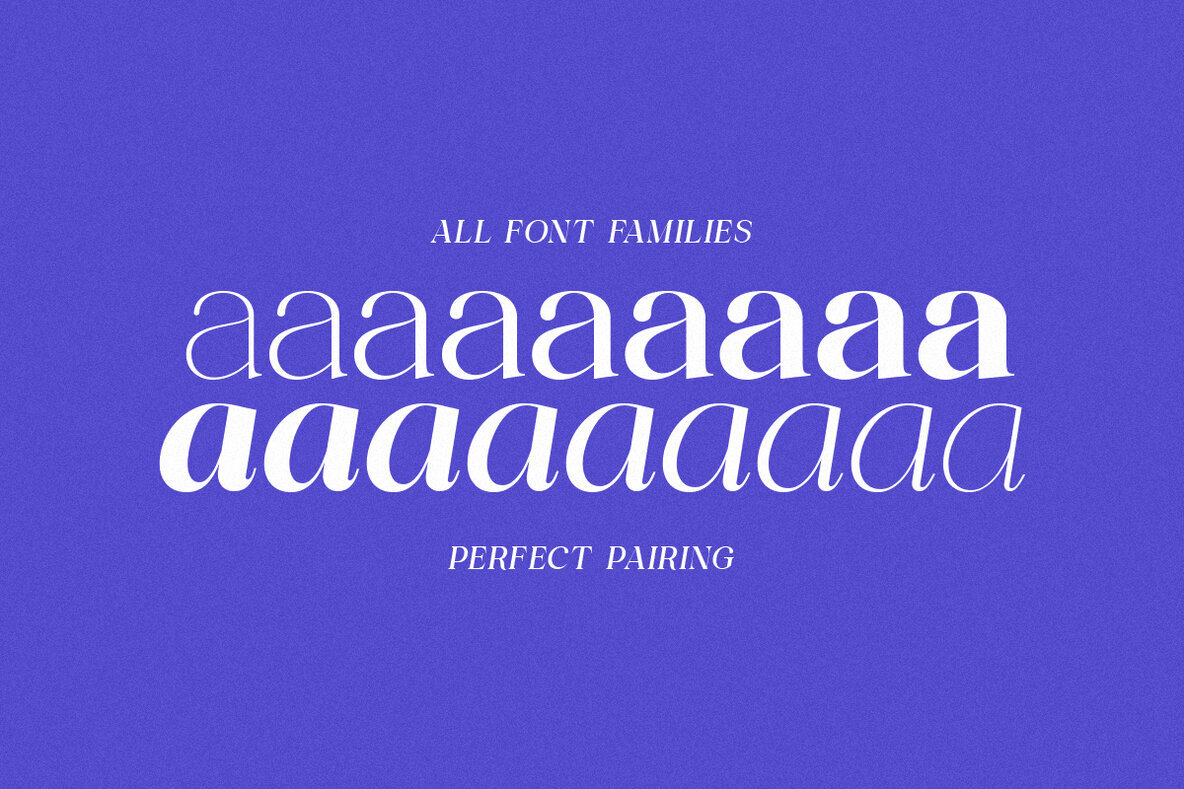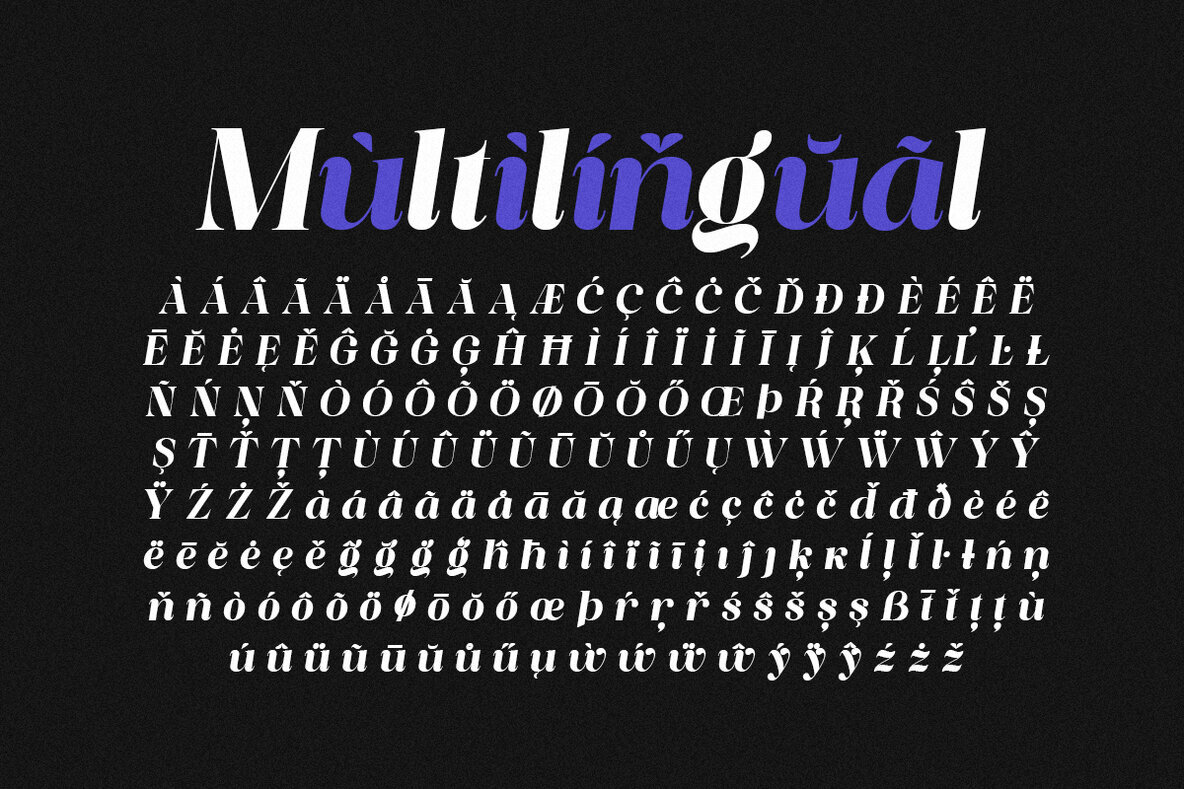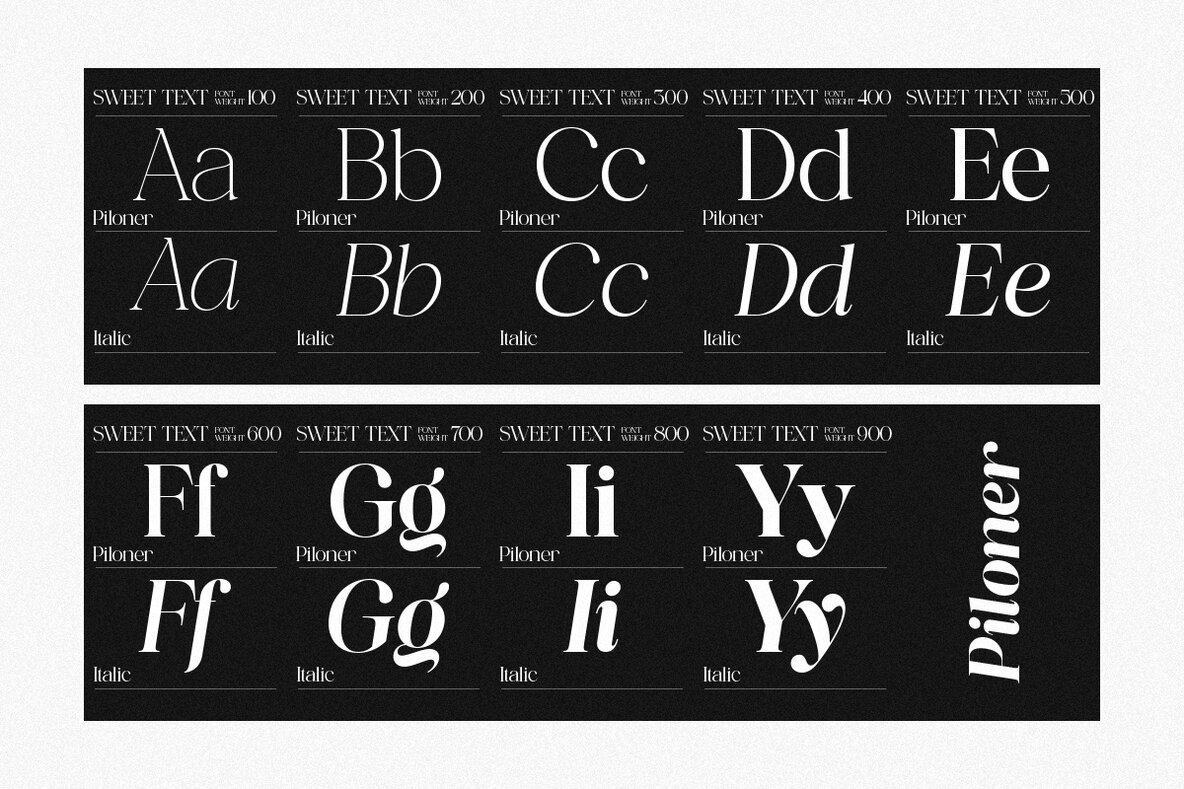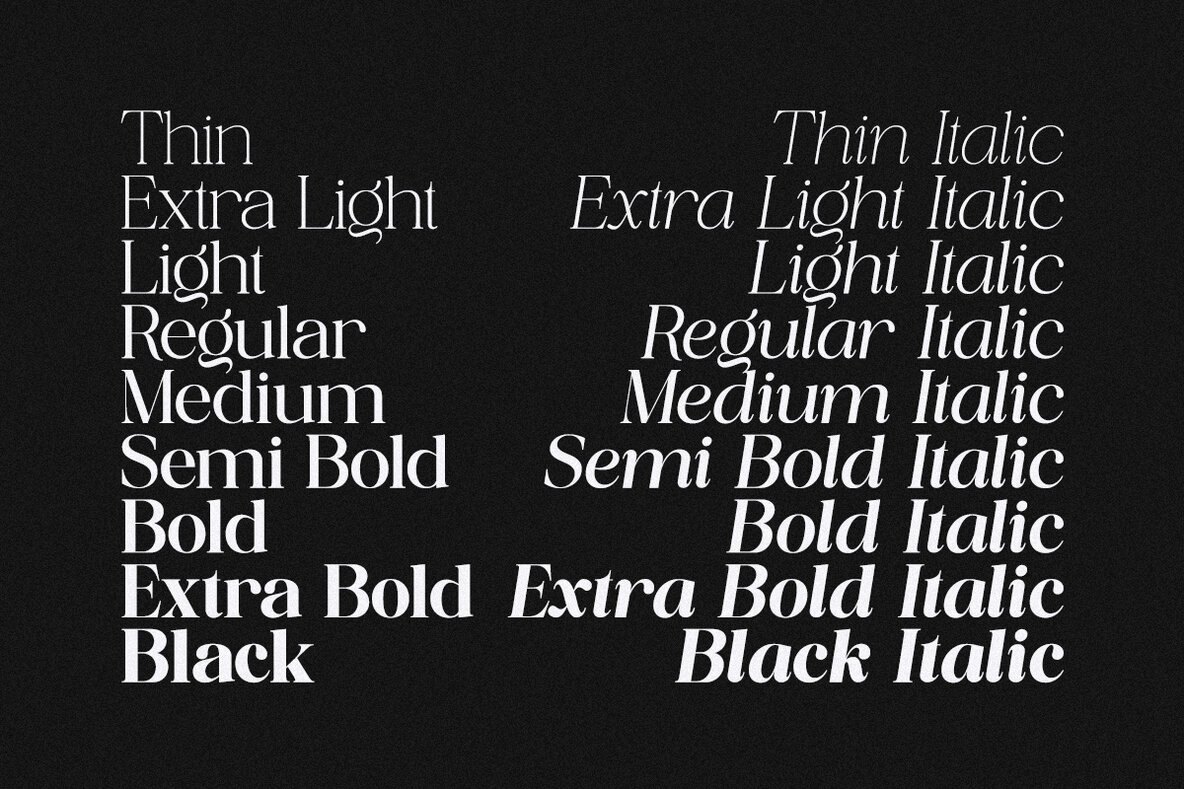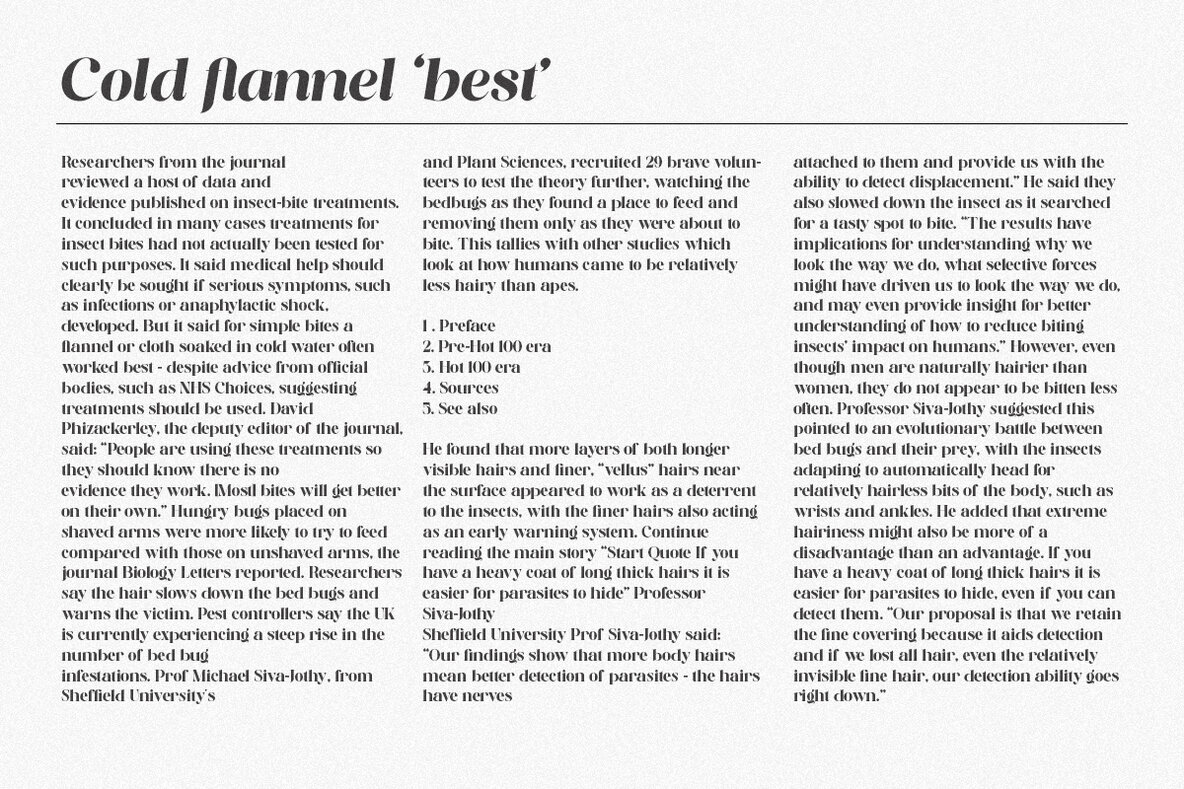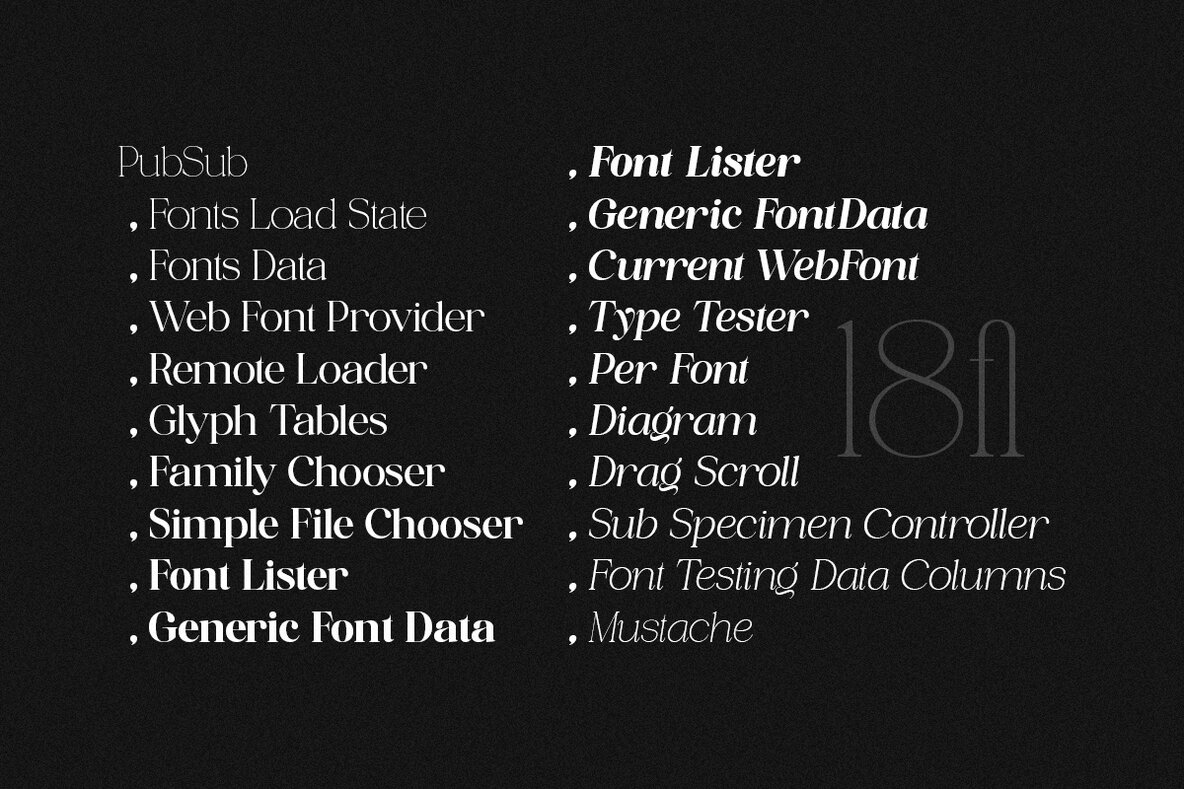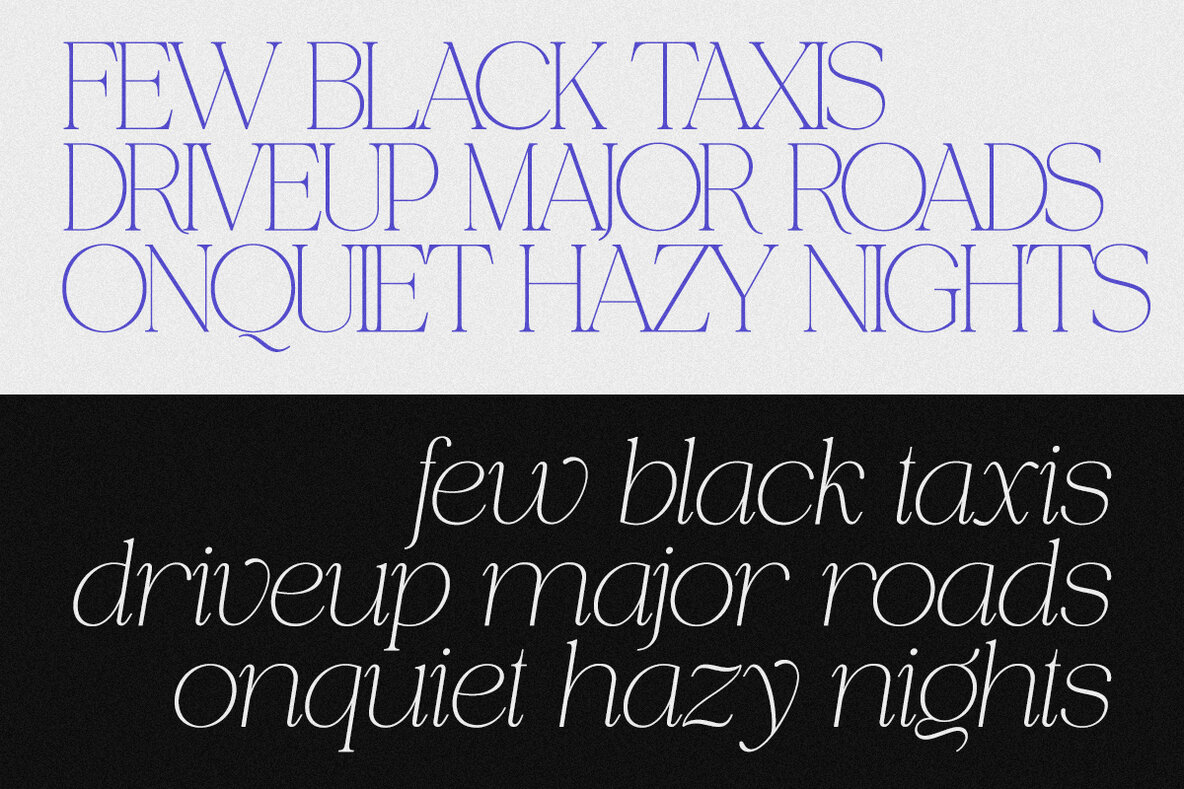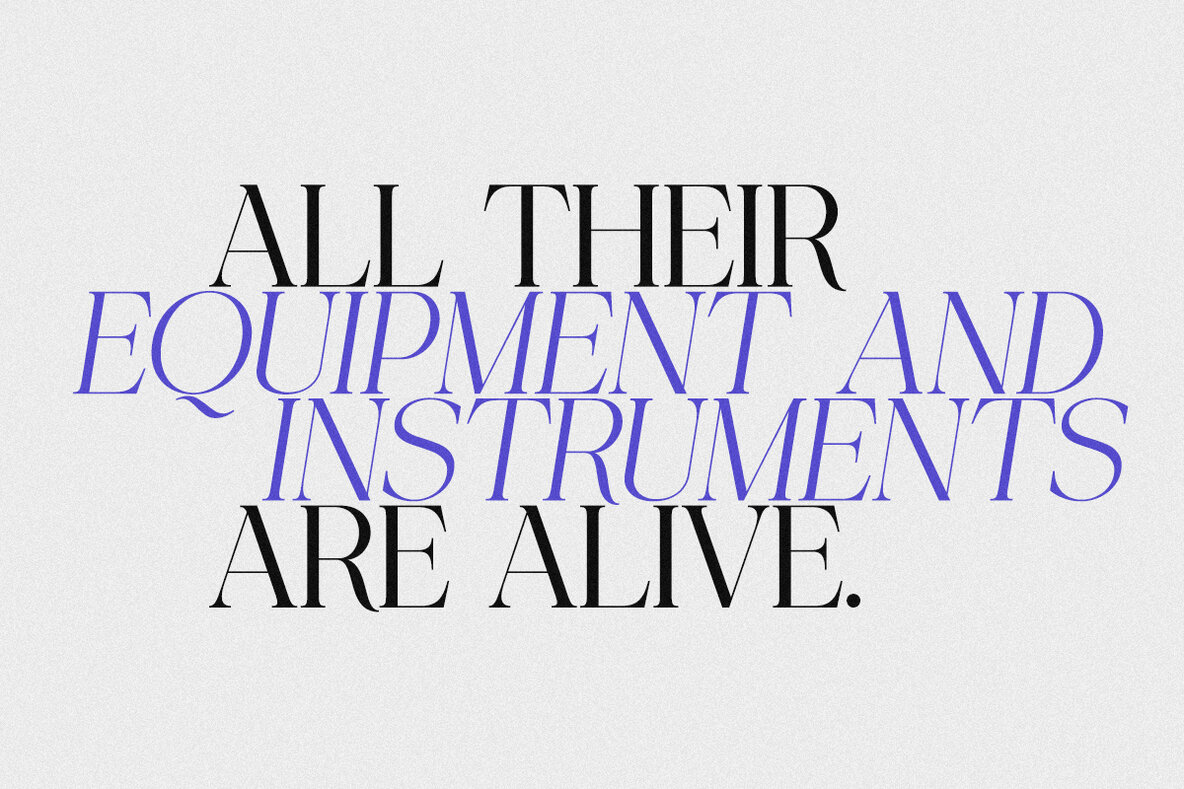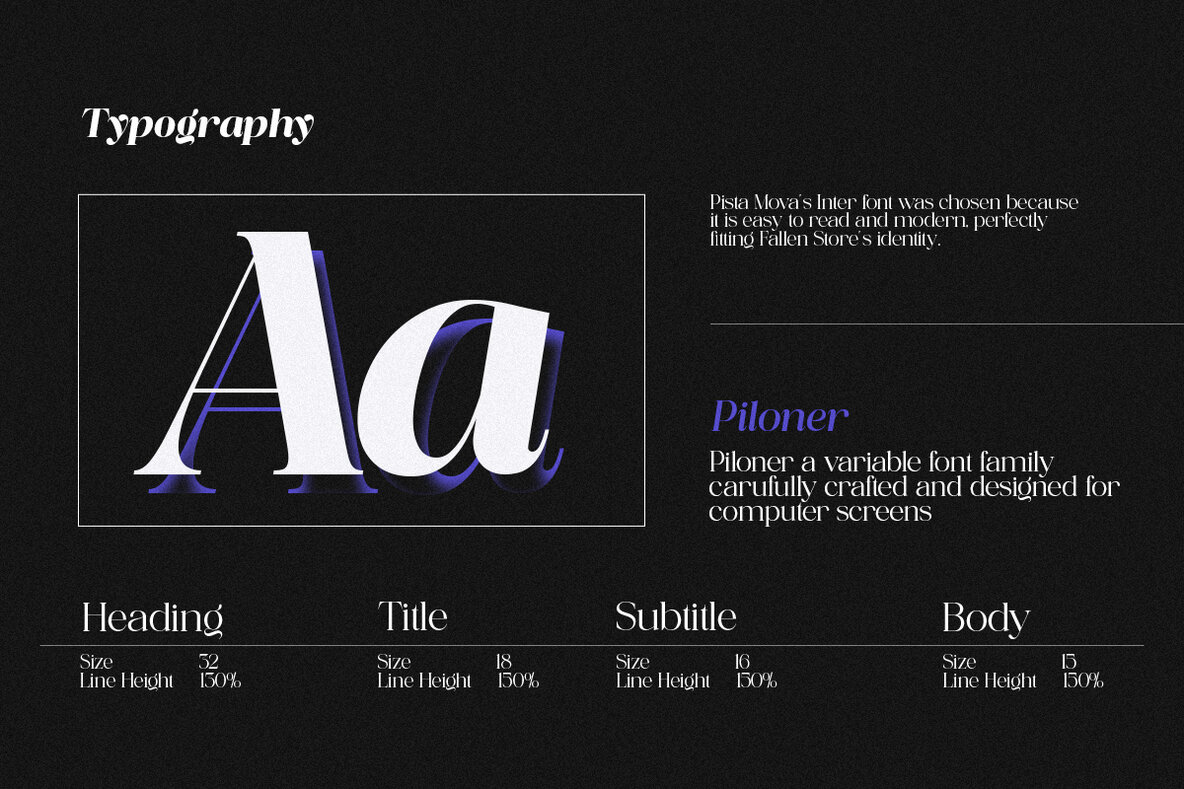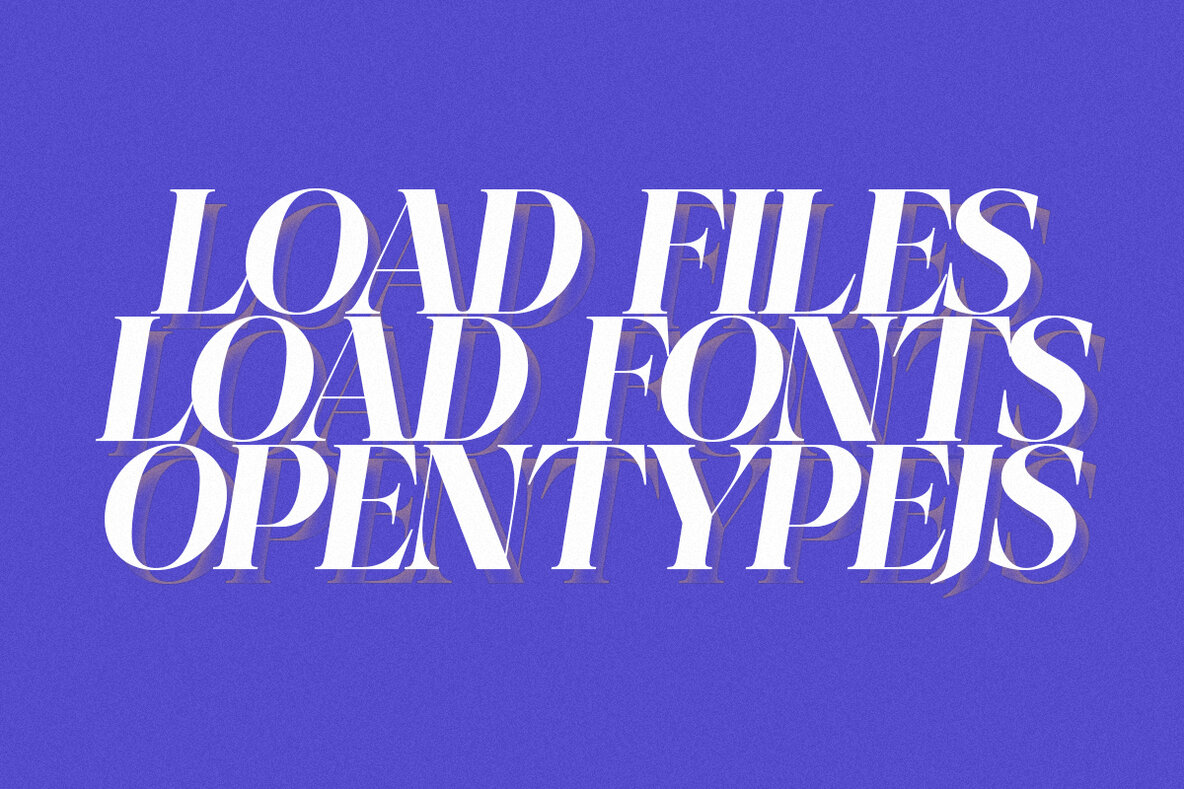
Piloner Font
Pista Mova presents the captivating Piloner | Font Family – a modern, high-contrast transitional serif typeface that exudes a captivating blend of contemporary sophistication and timeless elegance. Born under the skilled hands of Haikal Juanda, the graceful Piloner is here to make a lasting impression. Piloner defining characteristics are the striking contrast between thick and thin strokes, smooth graceful ovals, rounded ball terminals, and sharp bracket serifs that make a strong visual impact. All these qualities make this font ideal for designers who want to create refined and visually stunning compositions that leave an impression. Elegance, sophistication, and exclusivity. Featured images: All photos/images/vectors used in the preview are not included, intended for illustration purposes only. Piloner is accessible in Adobe Illustrator, Adobe Photoshop, Coreldraw, and even works in Microsoft Word. PUA-Encoded Characters – Fully accessible without additional design software. The font includes multilingual support.